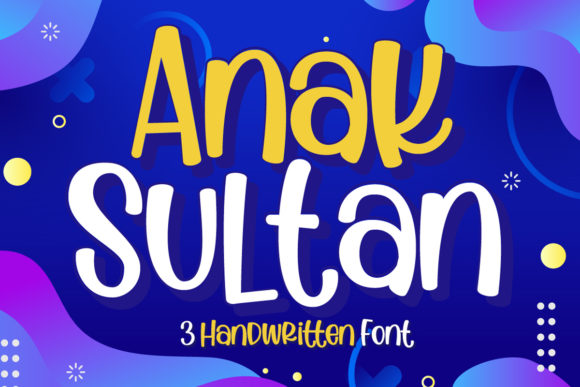
Step inside the world of Anak Sultan, a script font that's a symphony of elegance and playfulness. Crafted by the talented hands at Gilar Studio, this font is a visual masterpiece that speaks to the modern, creative soul.
The Anak Sultan font is not just a collection of letters; it's an expression of individuality, a gateway to a world of boundless possibilities. Its modern, fresh, and whimsical style dances across your screen, captivating your eyes and igniting your imagination.
Picture yourself designing a logo that exudes a modern, fresh vibe. The Anak Sultan font, with its clean lines and a touch of quirkiness, becomes the perfect canvas for your creative vision. It's a font that breathes life into your branding, adding a dash of personality that sets you apart from the crowd.
Unleash your creativity on social media with the Anak Sultan font. Its whimsical charm dances across your posts, stories, and reels, capturing the attention of your audience. Let your words flow beautifully, resonating with your followers in a way that leaves them wanting more.
Embark on a crafty DIY project with the Anak Sultan font as your trusty companion. Let your imagination soar as you create personalized cards, invitations, and home décor items. The font's playful spirit adds a touch of magic to your creations, making them truly one-of-a-kind.
The Anak Sultan font is more than just a font; it's a gateway to a world of creative expression. Its modern, fresh, and whimsical style invites you to explore new possibilities, to push the boundaries of your creativity, and to leave a lasting impression with every design you create.
Join the creative revolution with the Anak Sultan font. Embrace its modern charm, let your imagination run wild, and create designs that captivate and inspire. The Anak Sultan font is your passport to a world of infinite creative possibilities.